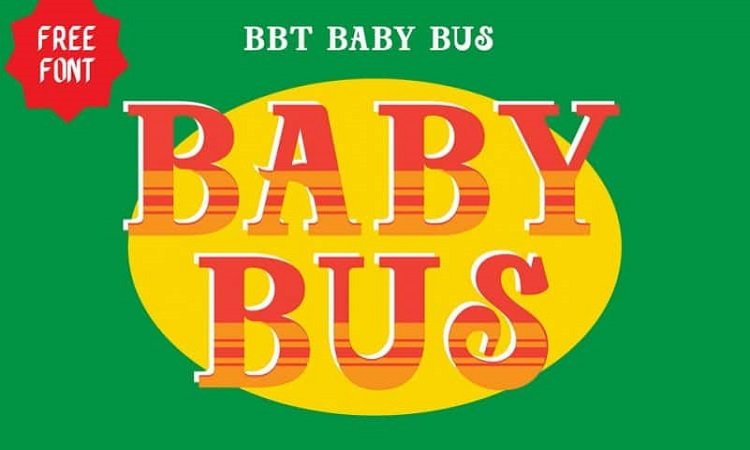
Baby Bus Slab Serif Font
Baby Bus Slab Serif Font is a modern display slab serif font with a bold feel. It will add a contemporary update to any design project. Made from font designer named John Misael Villanueva. And it’s a layered display typeface based on the colourful letterings of Cavite’s Baby Buses. The free font includes all the uppercase letters only.